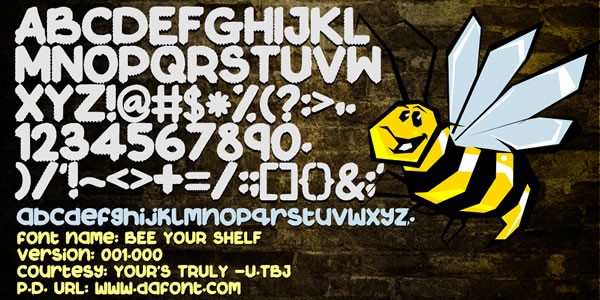
Introducing Bee Your Shelf Font, a display font family with a captivating personality, created by the talented TBJ Ohab. This whimsical and versatile font will add a touch of playful charm to your creative projects.
Unleash your imagination and let Bee Your Shelf Font guide you through a world of limitless possibilities. Its playful letterforms dance across the page, creating a sense of movement and energy that will grab the attention of your audience. Whether you're designing mugs, headings, logos, invitations, or newspaper articles, Bee Your Shelf Font is sure to make a lasting impression.
With its unique and eye-catching style, Bee Your Shelf Font is the perfect choice for those who want to stand out from the crowd. Its bold and playful curves create a sense of whimsy that will add a touch of fun and excitement to any project.
Step into a world of creativity with Bee Your Shelf Font. Its versatile nature makes it suitable for a wide range of projects, from playful children's books to eye-catching social media posts. Embrace the joy of expression and let Bee Your Shelf Font bring your words to life.